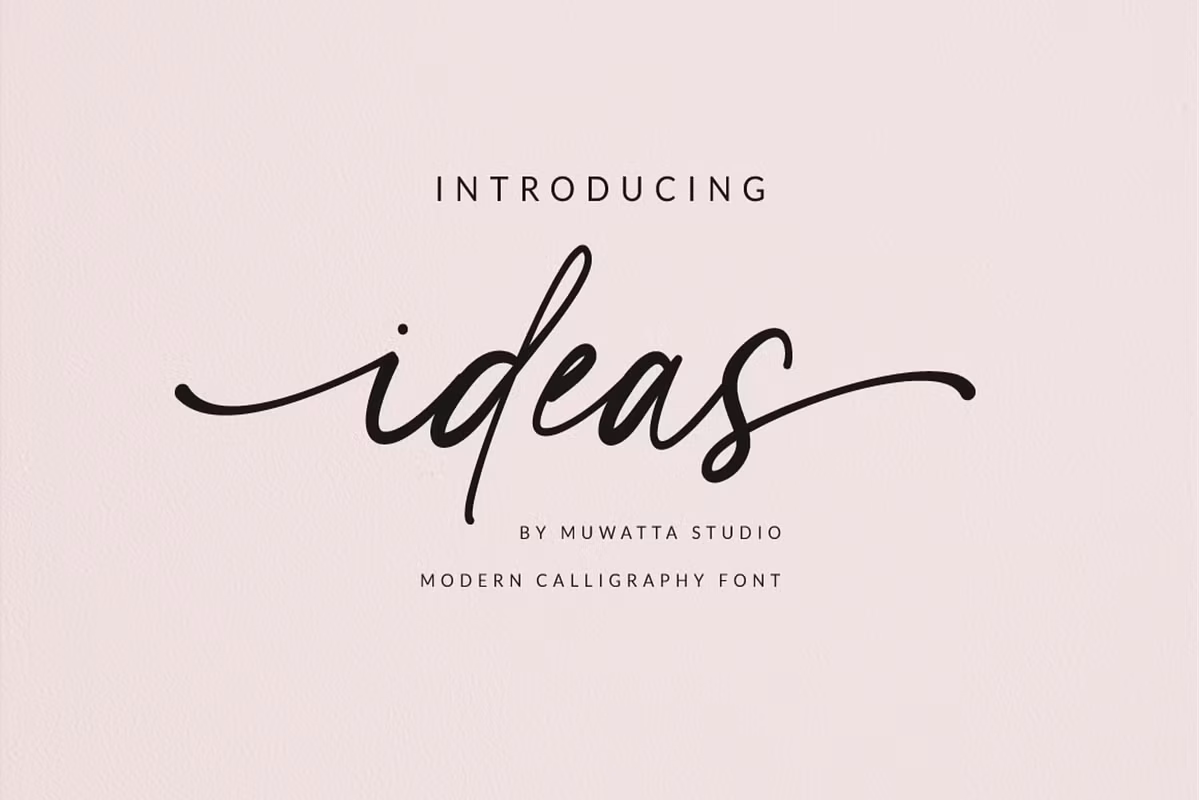
Ideas Script Font Free Download is a modern, flowing handwritten typeface that adds a personal and creative touch to any project. With its smooth curves, natural stroke variations, and stylish flair, Ideas is perfect for logos, branding, social media posts, product packaging, greeting cards, and inspirational quote designs.
Designed to feel like effortless penmanship, Ideas Script Font Free Download brings a warm, inviting feel that works beautifully in both digital and print formats. Whether you’re working on a casual lifestyle brand or a heartfelt message, this font delivers charm and personality in every letter.
Ideas Script is ideal for pairing with minimal sans-serif fonts to create eye-catching, balanced compositions. Its elegant yet relaxed look makes it versatile for both playful and professional design styles.